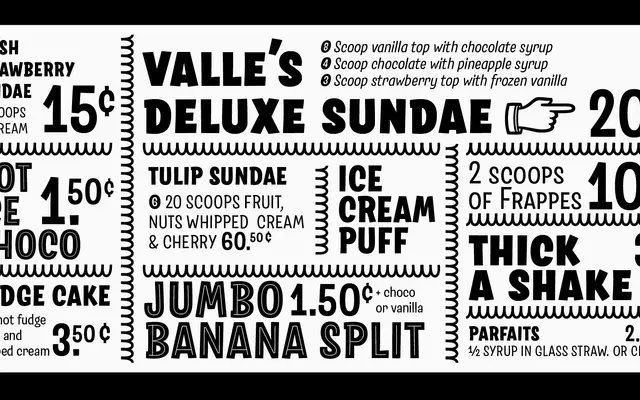
Salad
Zetafonts · Francesco Canovaro, Debora Manetti · 2021
A condensed display sans inspired by hand-painted ballroom lettering found in Fuerteventura, spanning five weights with roman, italic, interlocking and inline variants.
Francesco Canovaro reworked Debora Manetti's earlier typeface Sala de Fiestas into a fuller family, preserving the original's condensed proportions and vernacular Latino character while extending it with a five-weight range, Cyrillic support for 213 languages, and a broad set of OpenType features including small caps, stylistic alternates and old-style figures. The Interlock subfamily adds interlocking letterform variants for tighter display settings, and the Inline weight extends the decorative possibilities further. Hand-drawn dingbats complement the signpainting feel throughout.
A condensed display sans rooted in hand-painted signage aesthetics, with decorative interlocking and inline variants that place it firmly in the display category rather than workhorse text typography.